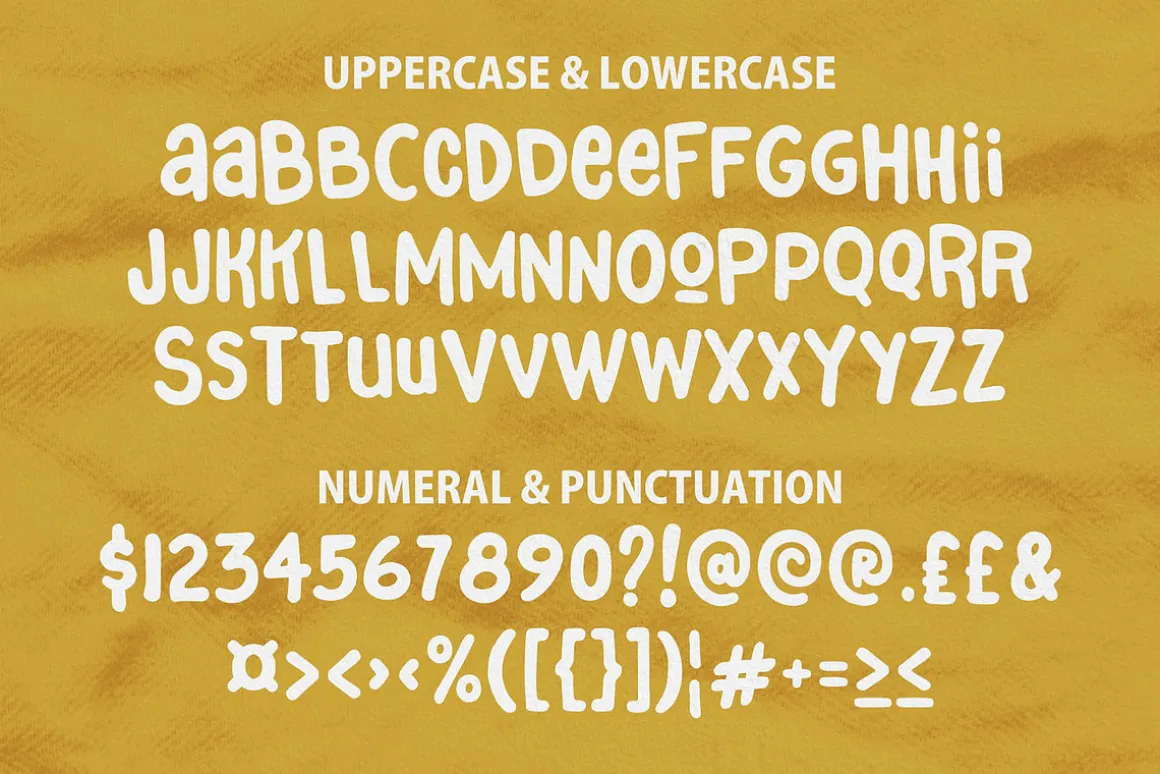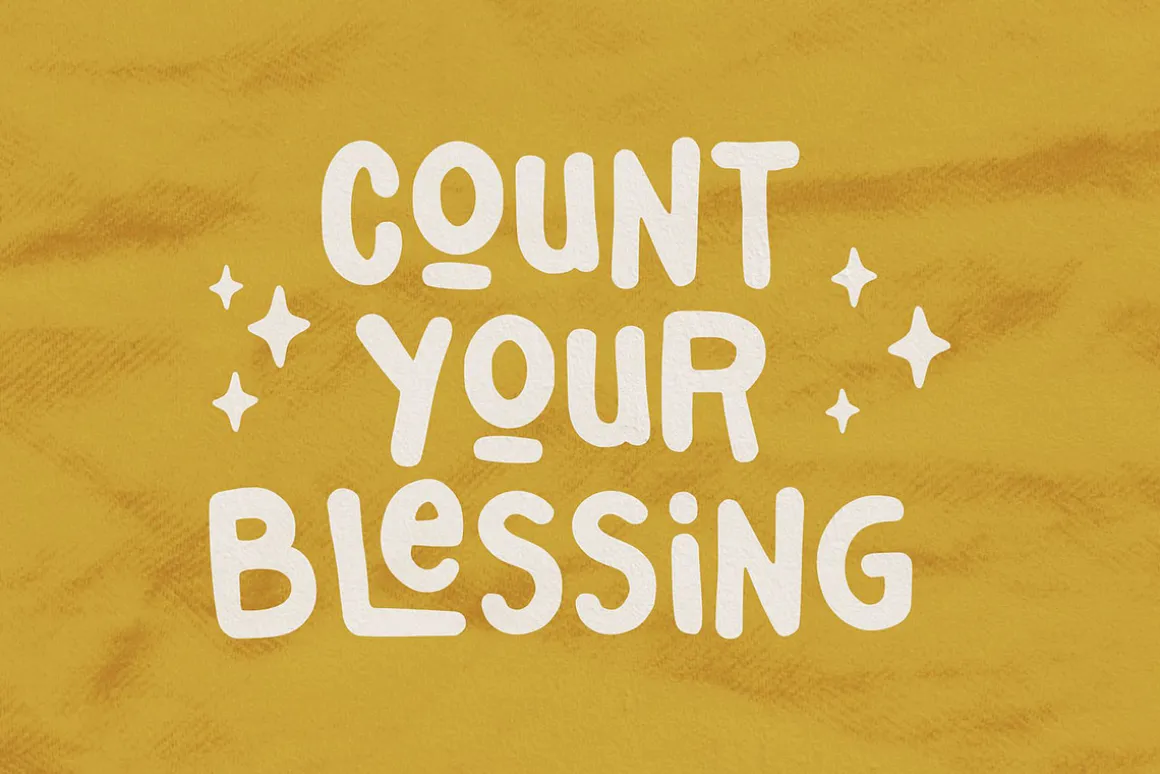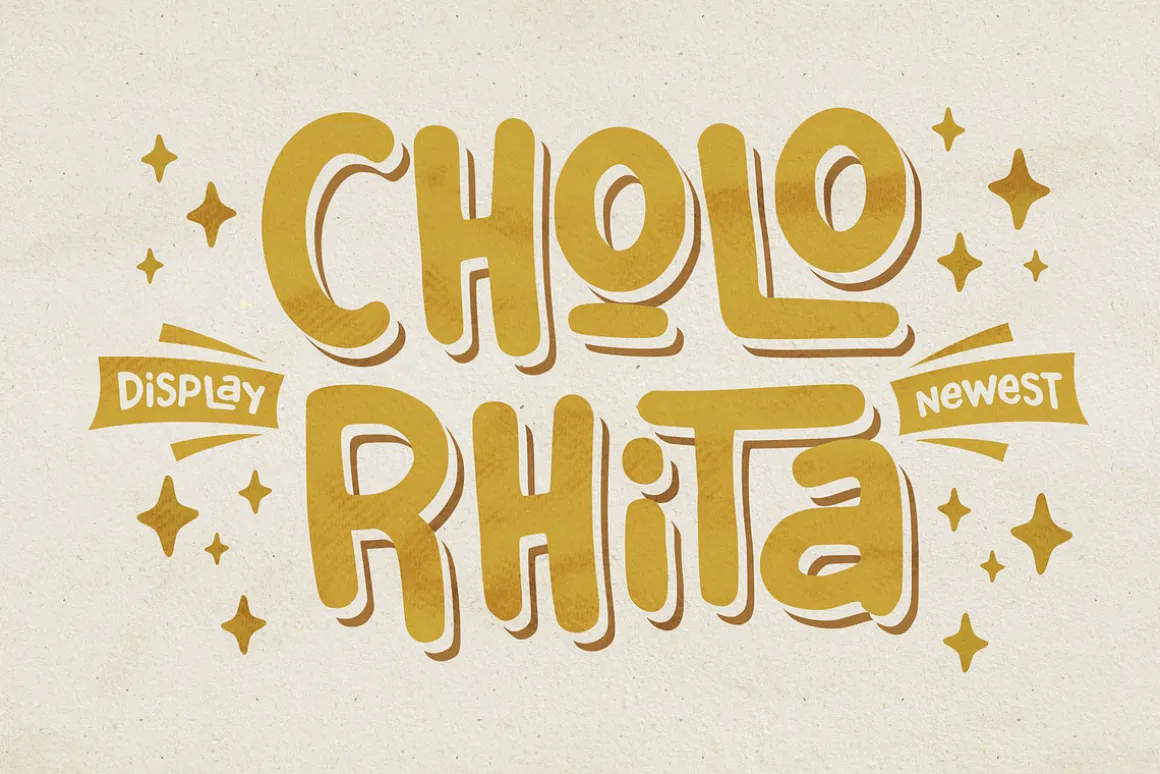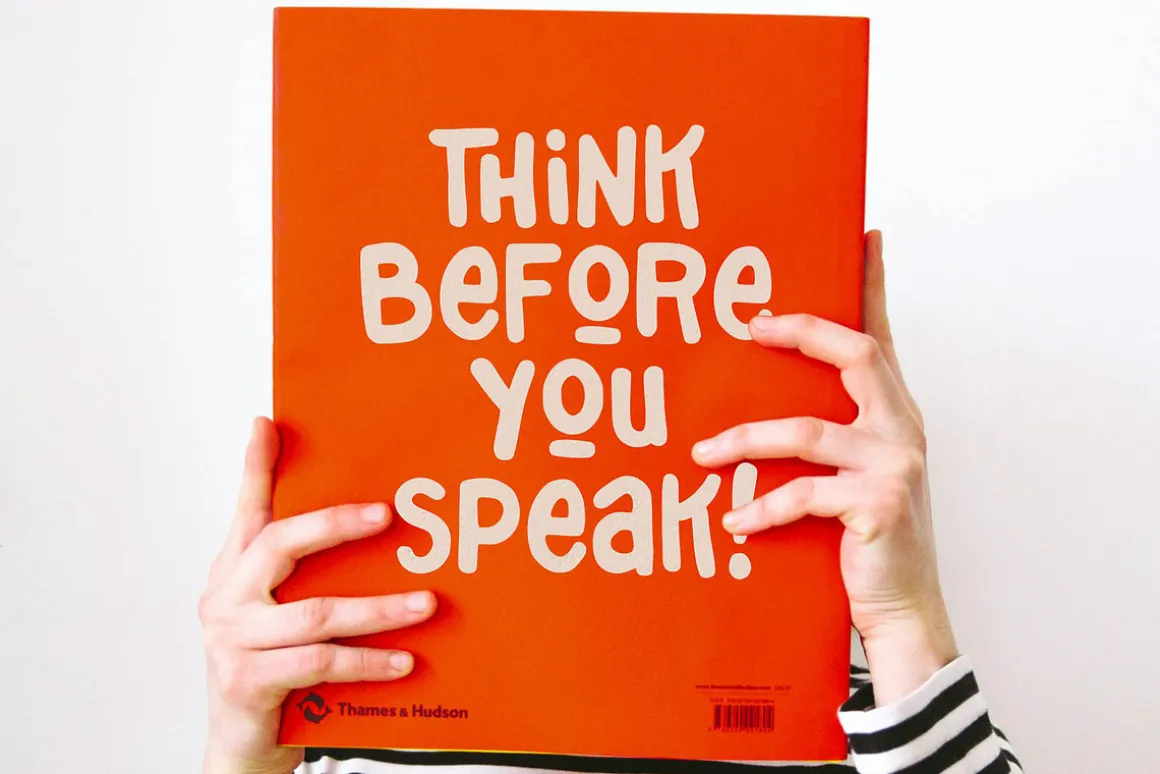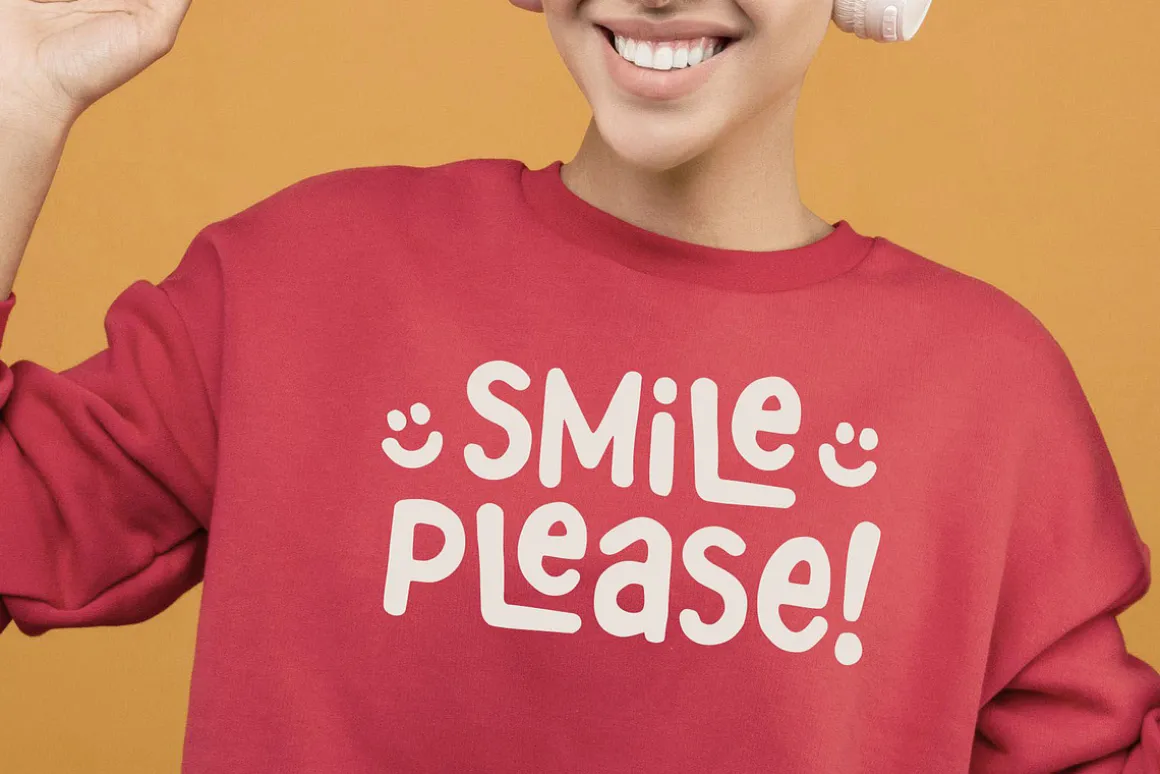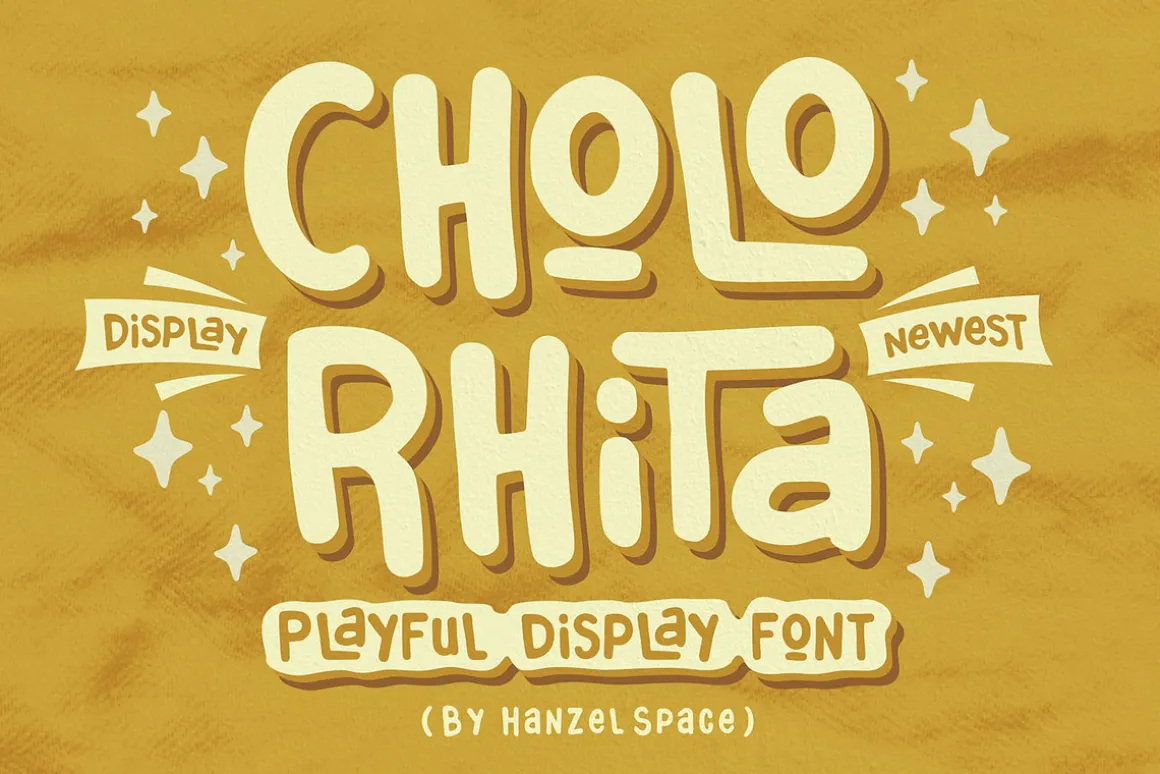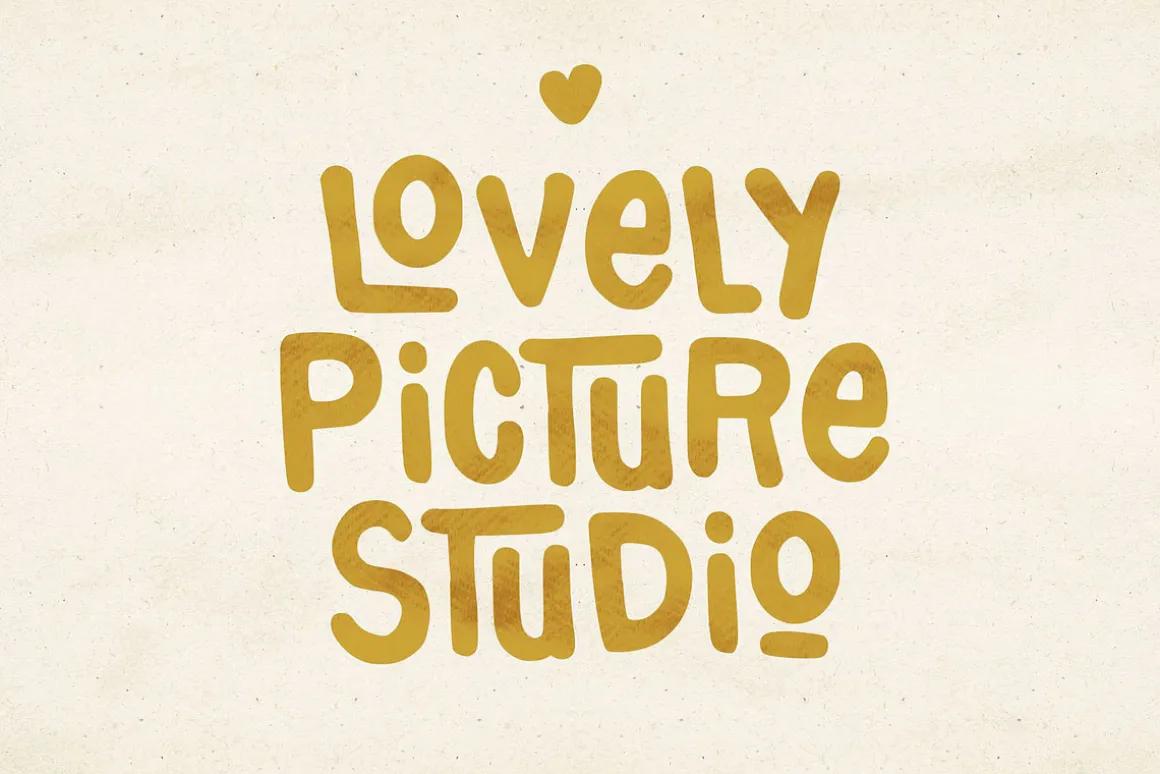
Cholo Rhita is a Kids Display Font. This cheerful and easy-to-read typeface is designed to convey a playful and playful feel. This font is perfect for making a strong statement in your designs.
Cholo Rhita Font is ideal for branding projects or packaging that need a quirky and playful feel. Perfect for a wide range of applications, from crafting eye-catching headings and dynamic logotypes to bringing energy to quotes, apparel, invitations, flyers, posters, greeting cards, product packaging, book covers, and printed quotes.
Uppercase & Lowercase
Numerals & Punctuation